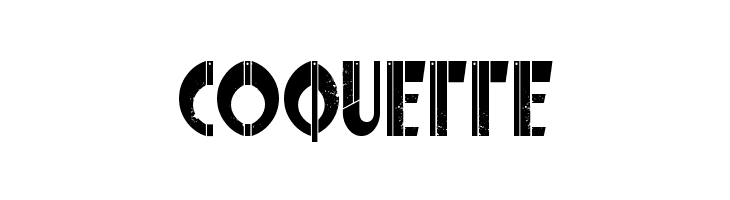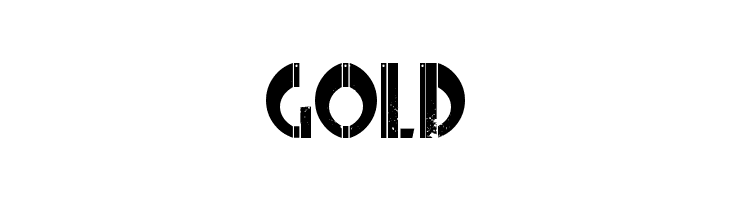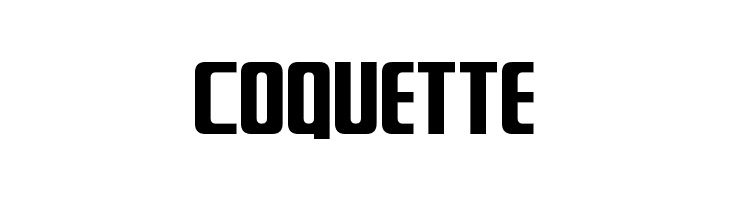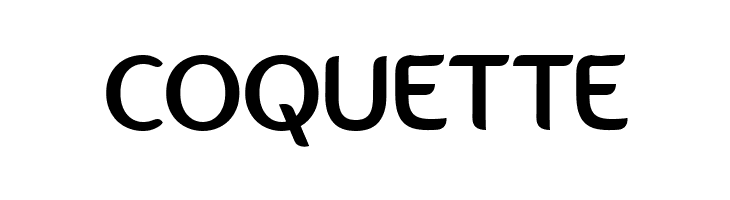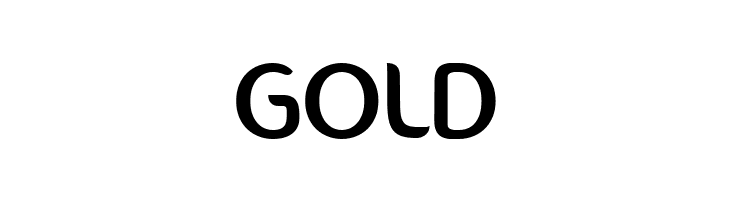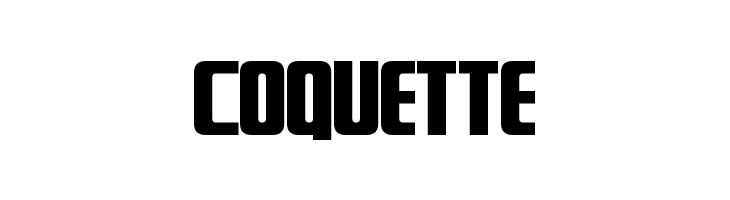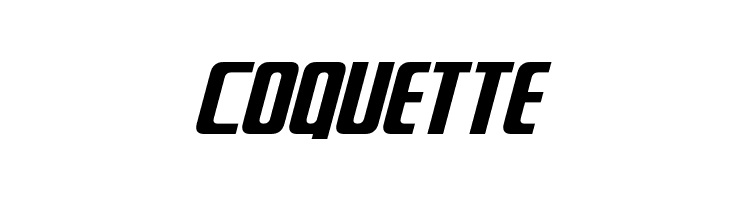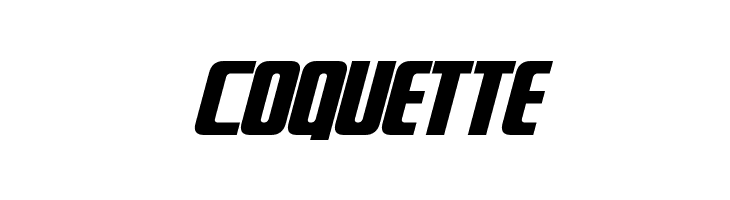
A bold, distressed font with a modern, geometric style.
A modern, geometric sans-serif font with uniform strokes and excellent readability.
A bold, geometric font with strong, block-like characters and rounded edges.
A bold, geometric typeface with a modern, industrial feel.
A bold, italic font with a dynamic and modern style.
A modern, rounded font with smooth curves and a friendly appearance.
A modern, playful font with smooth curves and rounded edges.